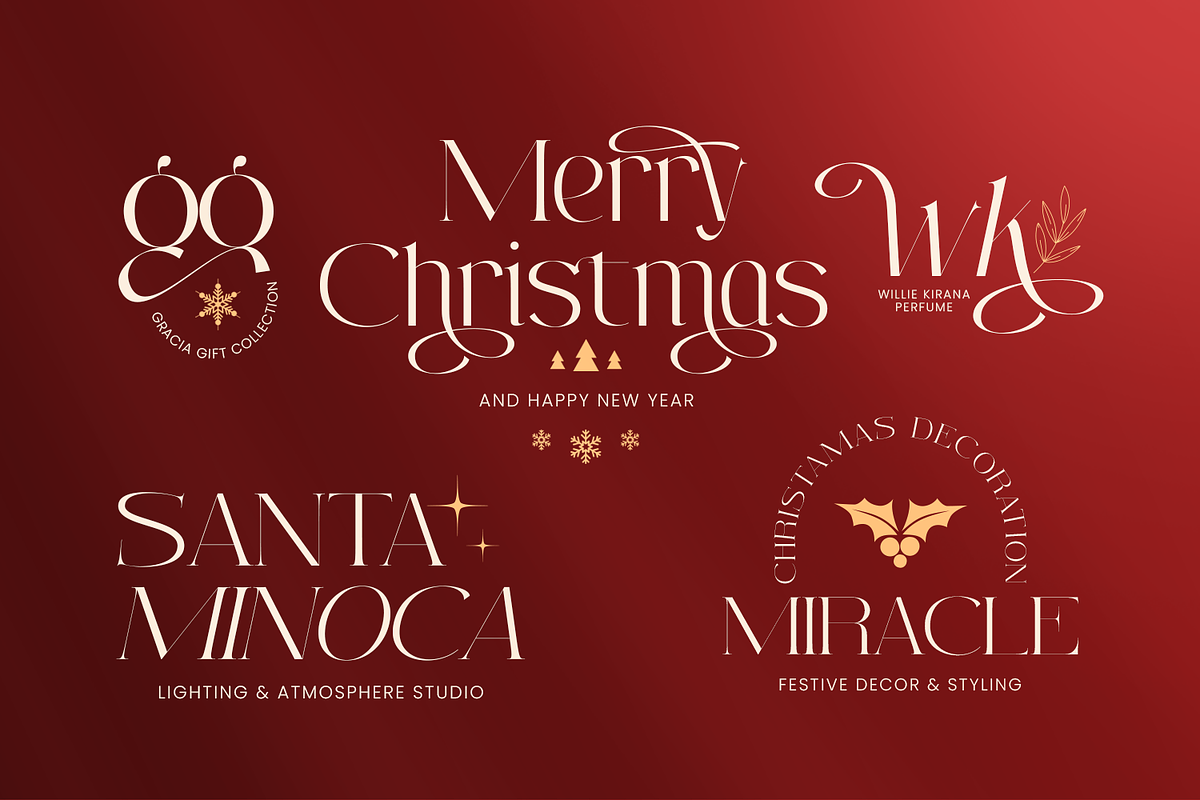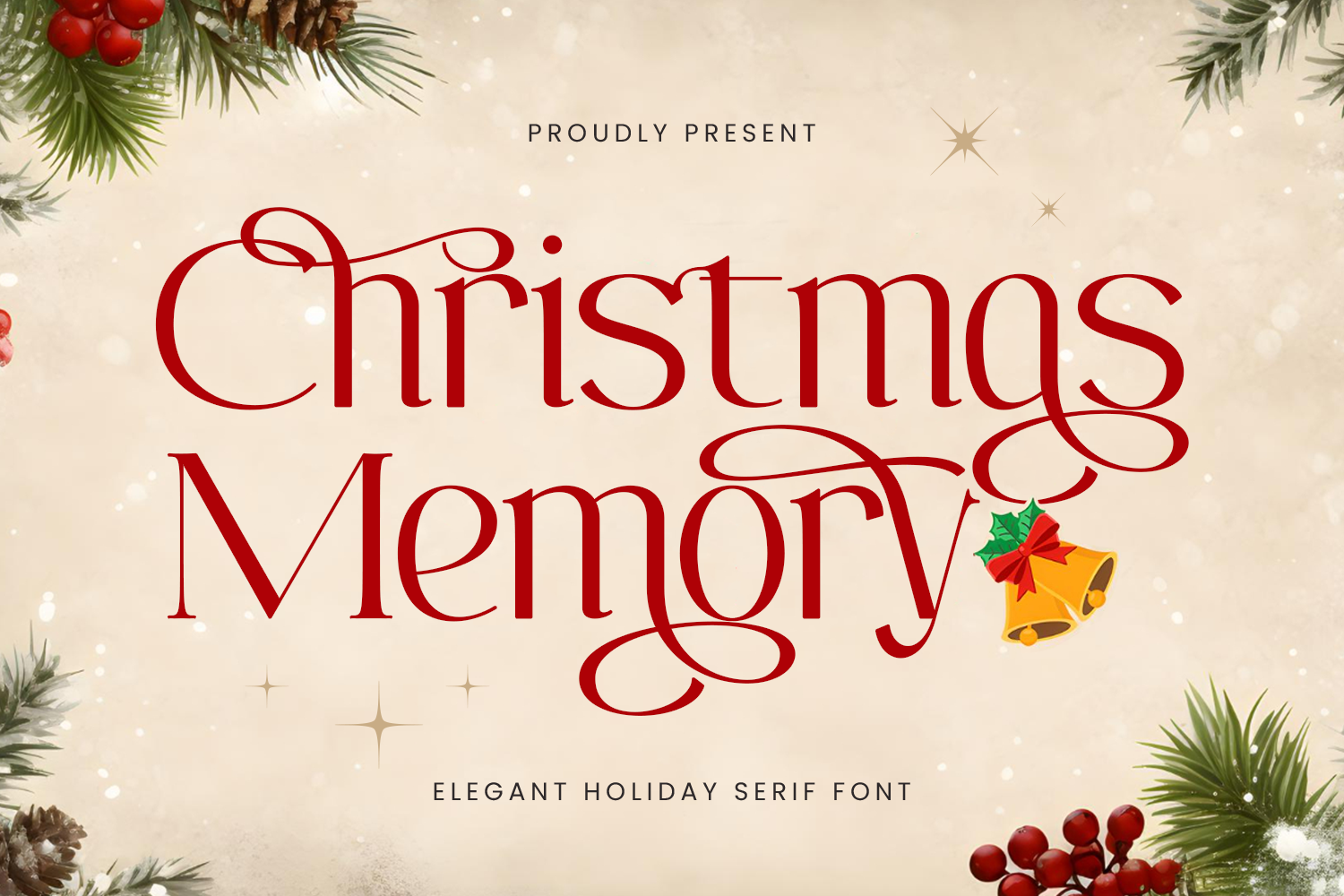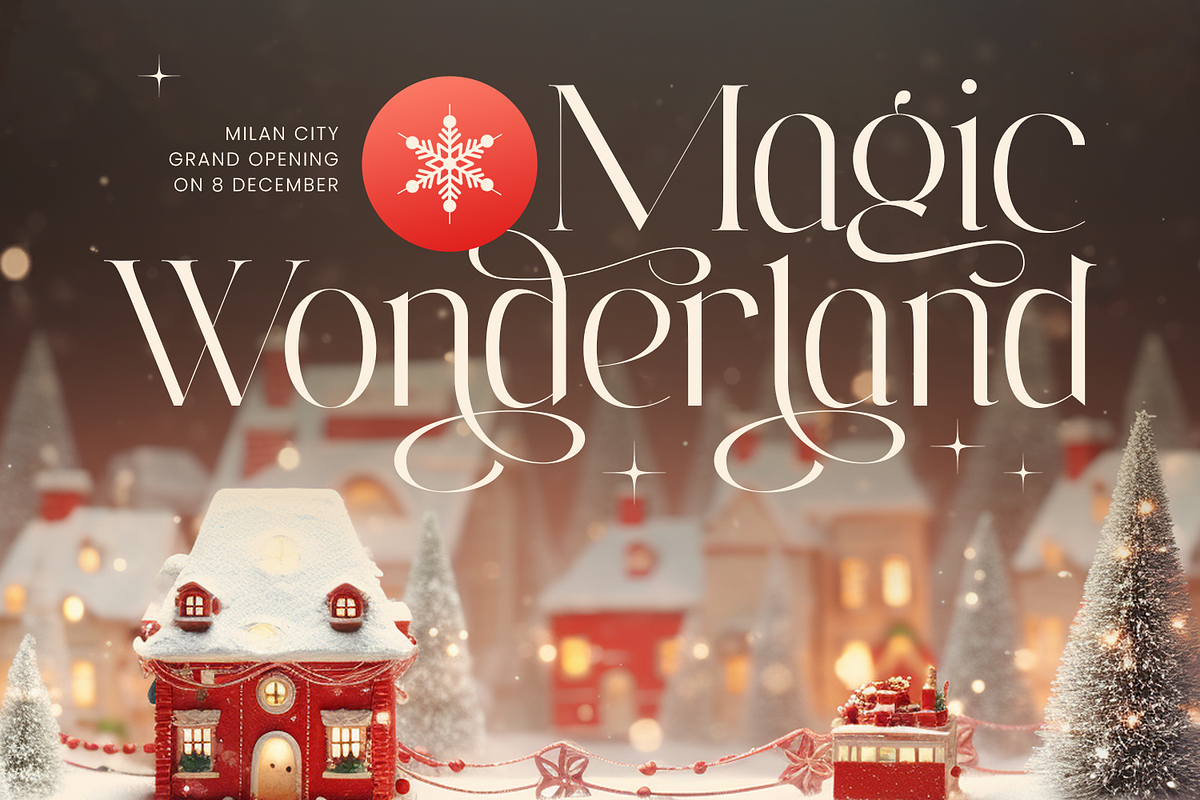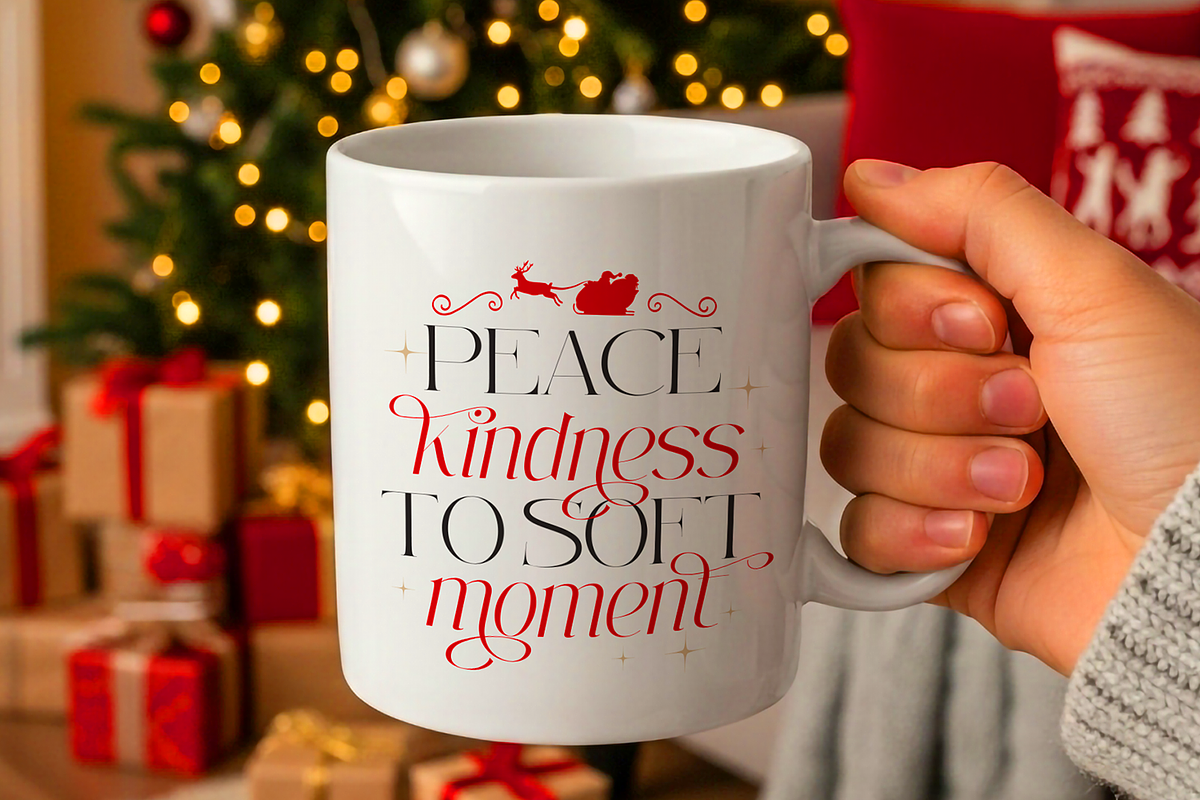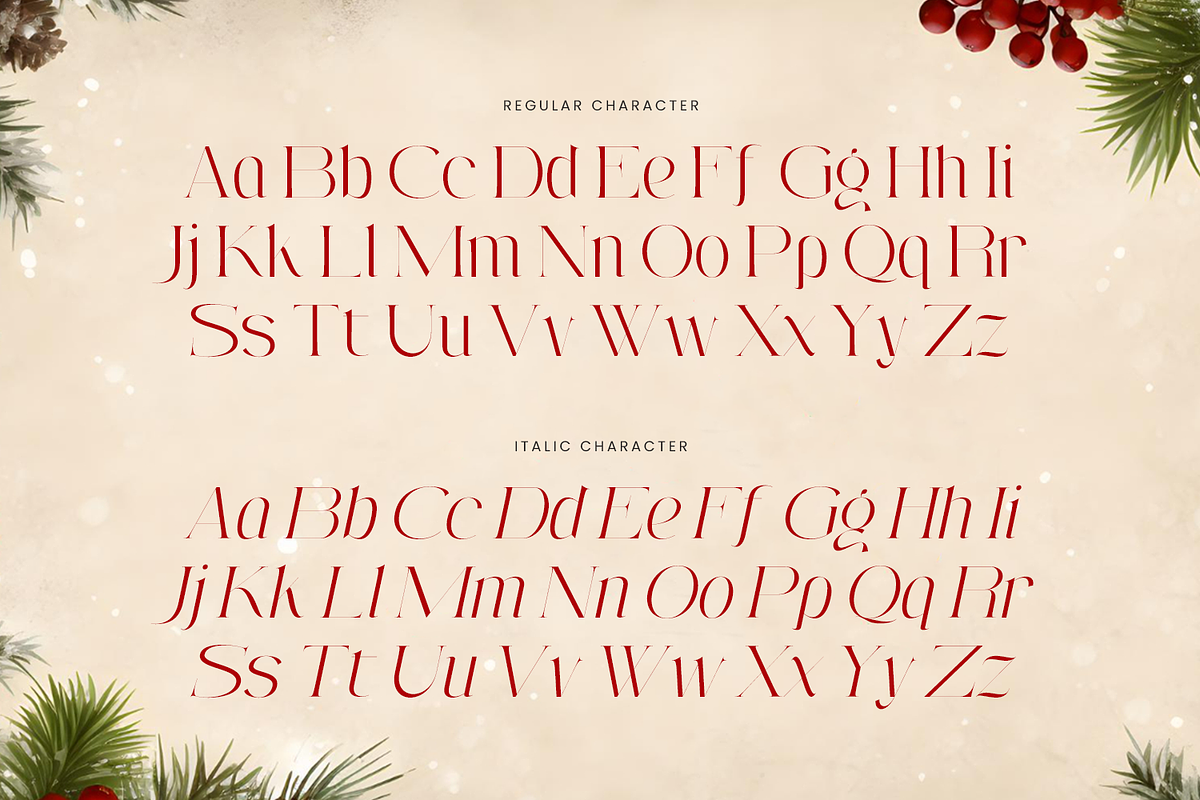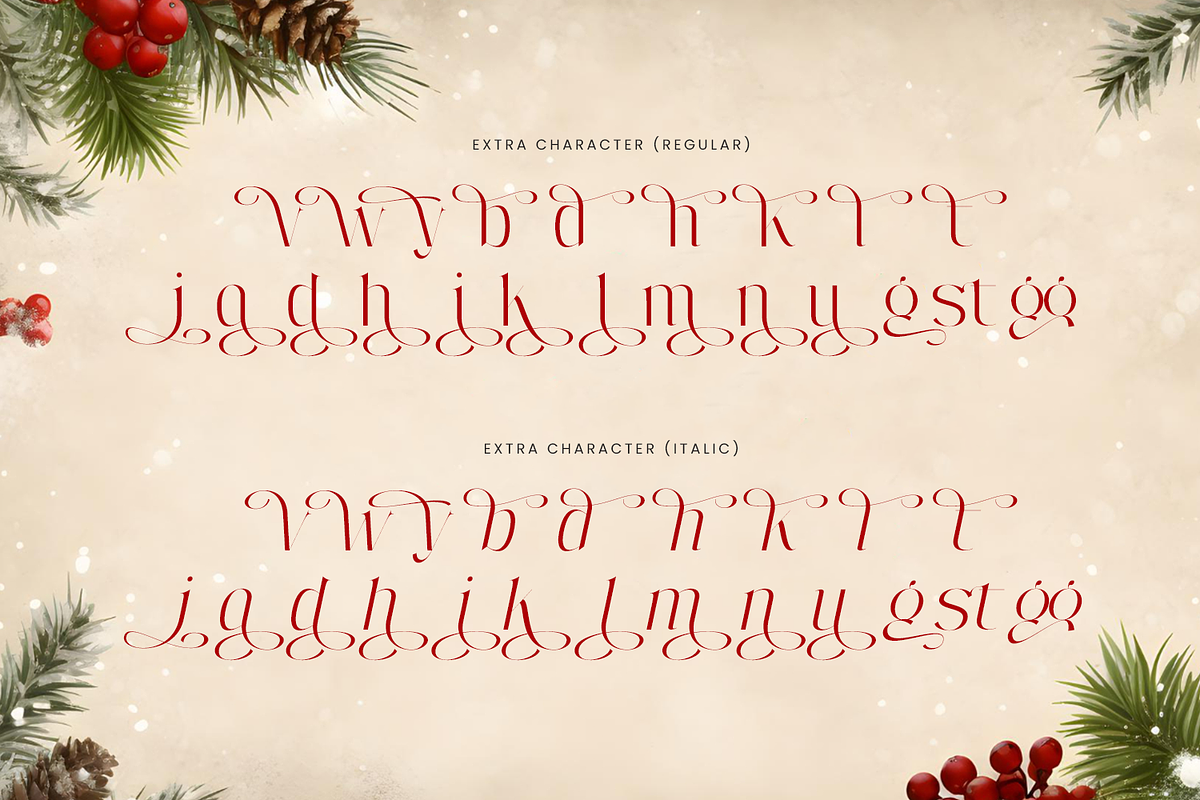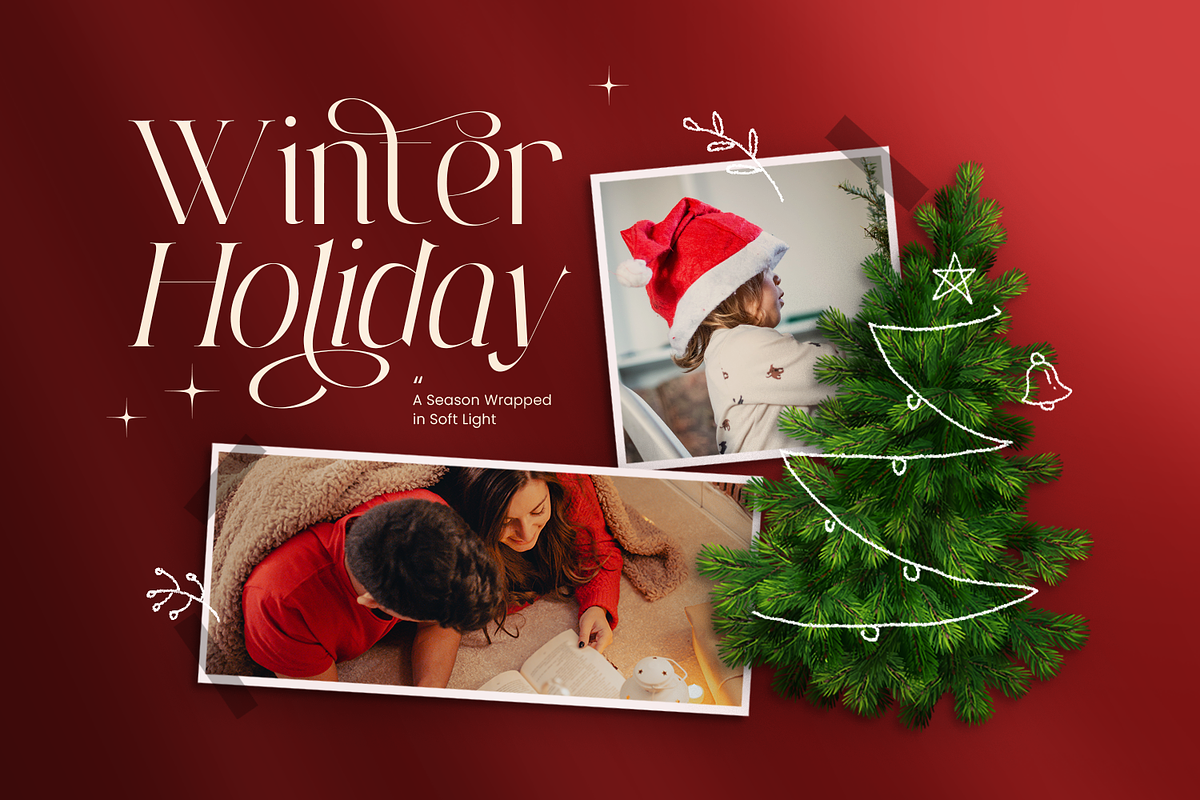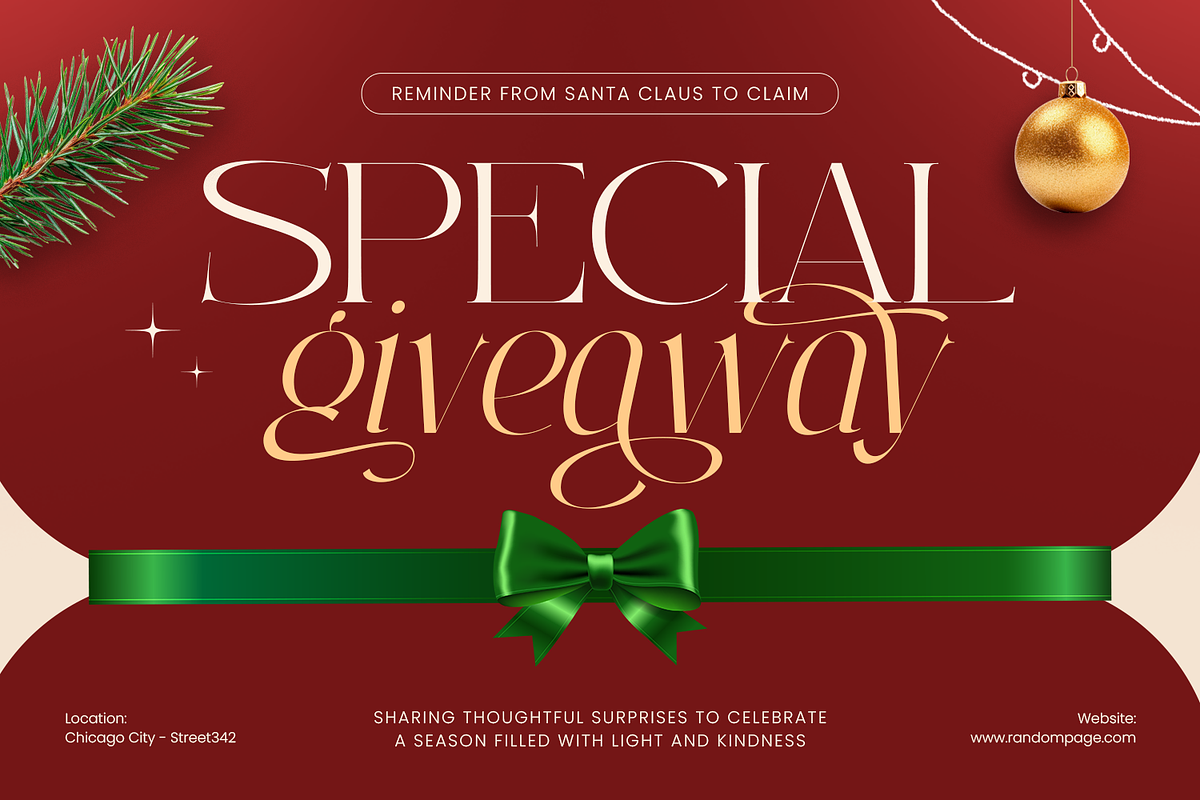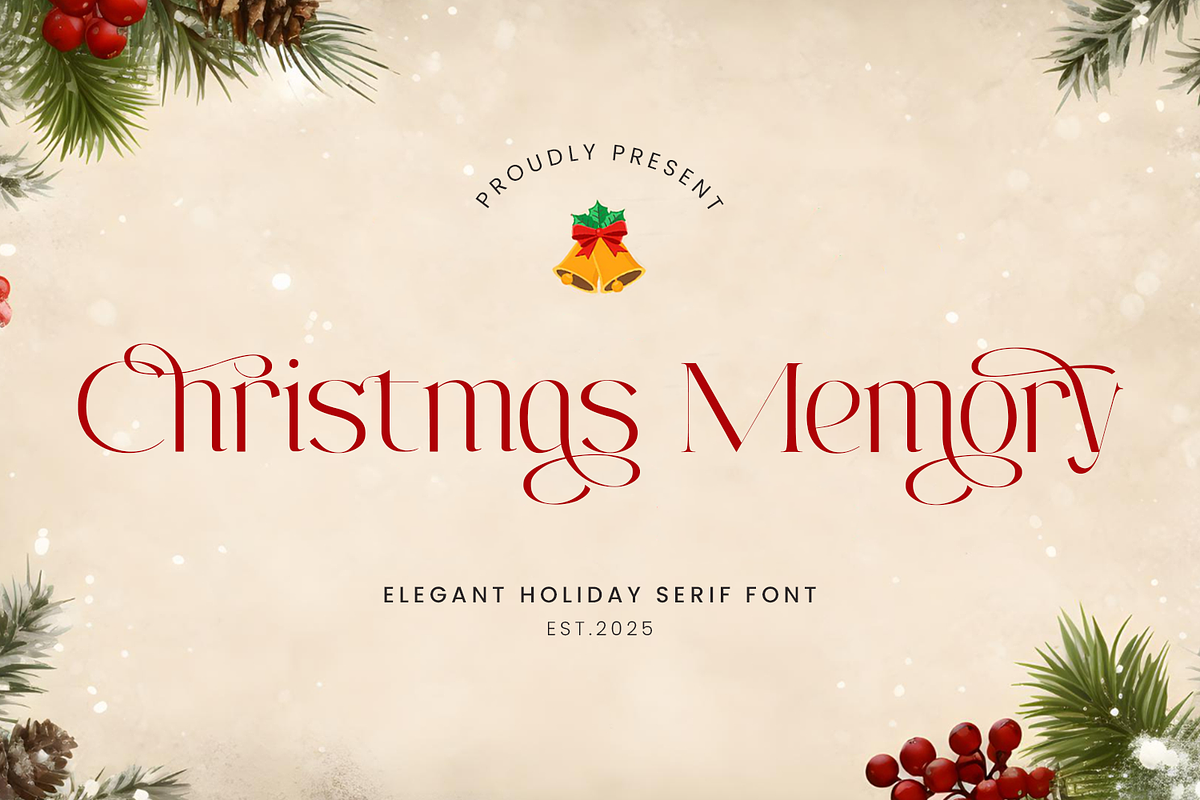
Christmas Memory - Christmas Font
Introducing Christmas Memory: An Elegant Christmas Serif Font with Beautiful Swashes
Meet Christmas Memory, a festive serif font designed to capture the warmth, joy, and elegance of the holiday season. Inspired by classic Christmas typography and refined decorative lettering, this font features stylish serif forms combined with graceful swashes that create a charming and memorable typographic style. Its elegant structure makes it perfect for festive designs that require both beauty and sophistication.
Christmas Memory blends classic serif elegance with decorative swash details, giving every letter a unique festive character. The flowing swashes and refined curves create a harmonious rhythm across the typography, adding a magical and nostalgic feel to holiday-themed designs. This combination allows designers to create stunning compositions that feel both traditional and stylish.
Designed for seasonal creativity, Christmas Memory works beautifully across a wide range of Christmas and holiday design projects. It is ideal for greeting cards, holiday invitations, festive posters, gift tags, product packaging, and seasonal branding. The elegant swash details help transform simple typography into decorative lettering that instantly evokes the spirit of Christmas.
Christmas Memory is also perfect for craft and DIY holiday projects. Whether you are designing Cricut projects, Christmas ornaments, personalized gifts, or festive decorations, the font brings warmth and charm to every design. Its decorative swashes allow you to create beautiful lettering compositions that feel handcrafted and joyful.
Whether used for holiday branding, festive social media graphics, seasonal packaging, or Christmas invitations, Christmas Memory provides a stylish and elegant typographic solution. Its timeless serif style combined with expressive swashes makes it a perfect choice for designers who want to create magical and memorable Christmas designs.
Key Features Elegant Serif with Swashes Classic serif letterforms enhanced with decorative swashes for a festive look.
Perfect for Christmas Designed specifically for holiday and Christmas-themed typography.
Stylish & Decorative Typography Elegant details create beautiful lettering compositions.
Versatile Seasonal Font Works well for invitations, greeting cards, packaging, and promotional graphics.
Multilingual Support Extended character set for international holiday projects.
Perfect For Christmas Greeting Cards Create elegant and festive holiday card designs.
Holiday Invitations Perfect for Christmas party invitations and seasonal events.
Gift Tags & Packaging Enhance gift packaging and holiday product labels.
Craft & Cricut Projects Great for DIY decorations, ornaments, and festive crafts.
Seasonal Social Media Graphics Design stylish holiday promotions and Christmas visuals.
Bring festive elegance to your holiday designs with Christmas Memory.